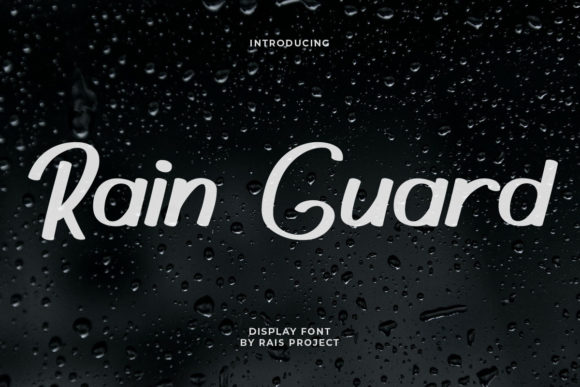
Welcome to the world of Rain Guard Font, a display font family that captivates with its unique charm. Crafted by RaisProject, this font is a mesmerizing blend of neatness, coolness, readability, and down-to-earth aesthetics that effortlessly elevates your creative projects.
Rain Guard Font is more than just a collection of letters; it's an artistic journey that takes you to new heights of creativity. Whether you're designing captivating flyer headings, crafting stunning logos, or creating eye-catching social media graphics, Rain Guard Font is your perfect companion. Its versatility knows no bounds, allowing you to infuse your projects with a touch of elegance, playfulness, or boldness, depending on your vision.
With Rain Guard Font, you can effortlessly make a statement, leaving a lasting impression on your audience. Its carefully crafted characters dance across the screen, creating a visual symphony that captivates and engages. Experience the power of typography as you witness your words come alive, radiating with personality and flair.
Unlock the endless possibilities of Rain Guard Font and embark on a creative adventure like never before. Let your imagination soar as you explore the myriad ways this font can transform your projects. From vibrant posters that demand attention to sophisticated branding materials that exude professionalism, Rain Guard Font is your ultimate creative ally.
Join the ranks of satisfied designers, marketers, and creative professionals who have discovered the magic of Rain Guard Font. Embrace the power of typography and unleash your creativity like never before. Let Rain Guard Font be your guide as you embark on a journey of artistic expression and boundless possibilities.